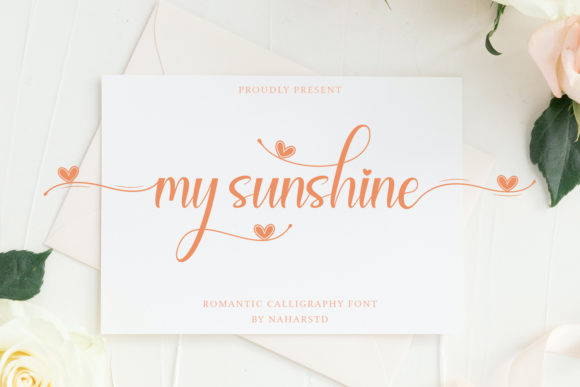
Welcome to the world of My Sunshine Font, an enchanting script font family that radiates warmth and elegance like the sun's golden rays. Crafted meticulously by Naharstd, this font dances across your designs with a touch of captivating charm and a hint of romantic flair.
My Sunshine Font is the perfect choice for adding a personal touch to your creative projects. Let your words shine with a unique handwritten style, reminiscent of heartfelt notes and heartfelt letters. Whether you're creating wedding invitations that capture the essence of love or thank you cards that express genuine gratitude, My Sunshine Font transforms your words into works of art.
Step into a world where quotes become captivating, greeting cards bloom with warmth, logos exude professionalism, and business cards leave a lasting impression. My Sunshine Font gracefully enhances every design it graces, adding a touch of sophistication to your branding and a sprinkle of magic to your personal touches.
With its varying baseline, smooth lines, and gorgeous glyphs, My Sunshine Font adds a touch of dynamism and visual interest to your designs. The stunning alternates provide endless creative possibilities, allowing you to customize your text and make it truly your own.
My Sunshine Font is also PUA encoded, making it easy to access all of the glyphs and swashes, ensuring that your creative vision knows no bounds. Unleash your imagination and let your designs flourish with the beauty of My Sunshine Font.